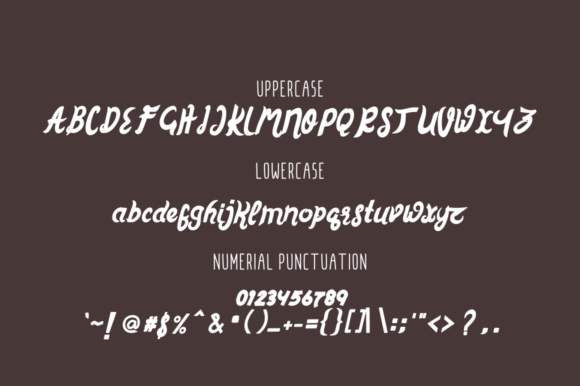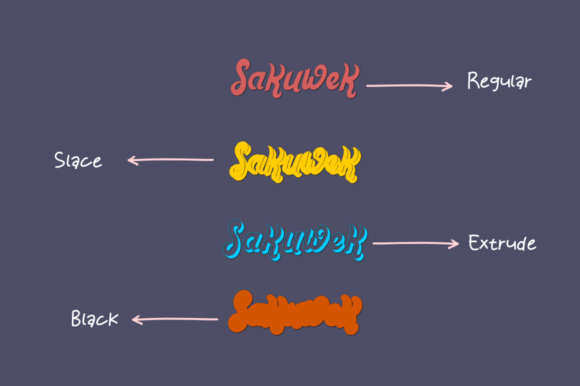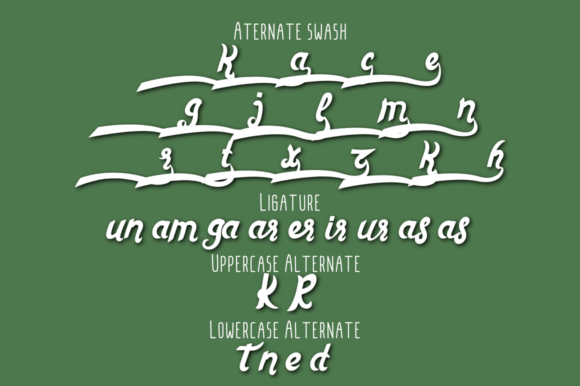
Introduction to Sakuwek Font
Have you ever been in the midst of a creative project, searching for the perfect font to give it that extra oomph? The frustration of scrolling through endless options, only to find that they just don’t quite fit the vibe you’re going for? That’s where the Sakuwek Font comes in – a fun and sweet display font that’s sure to capture your attention.
With its unique charm and high-quality design, the Sakuwek Font is a valuable resource for designers looking to add some personality to their work. Whether you’re working on a branding project, creating a social media graphic, or designing a website, this font is sure to bring a touch of whimsy and creativity to your design.
Key Features of Sakuwek Font
- High-quality design with a unique aesthetic, ideal for creative projects that require a touch of elegance.
- Includes 6 styles, each with its own distinct characteristics, providing users with a versatile design tool.
Honest Review: Sakuwek Font
I recently had the chance to work with the Sakuwek Font in a creative project, and I was impressed by its high quality. This font is perfect for designers looking for a versatile and elegant design resource.
One of the standout features of the Sakuwek Font is its transparent background, which makes it easy to use on a variety of designs. This font is also incredibly easy to customize, making it perfect for designers who like to get creative with their projects.
- Easy to use and customize
- Transparent background for versatility
- May not be suitable for all design styles or themes
- Some users may find the font too minimalist
Overall, I’m really impressed with the Sakuwek Font. It’s a high-quality design resource that’s perfect for creative projects. With its transparent background and easy customization options, it’s a great addition to any designer’s toolkit.
The Sakuwek Font is a unique, high-quality design resource ideal for creative projects that require a touch of elegance and sophistication. Its transparent background makes it versatile for use in various digital platforms.
The Sakuwek Font is ideal for various design projects, including business cards, logos, brochures, and social media graphics. Its elegant and sophisticated design makes it perfect for creative professionals and individuals looking for a high-quality design resource.